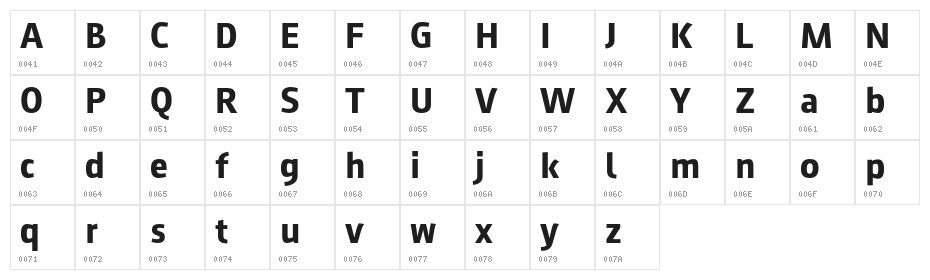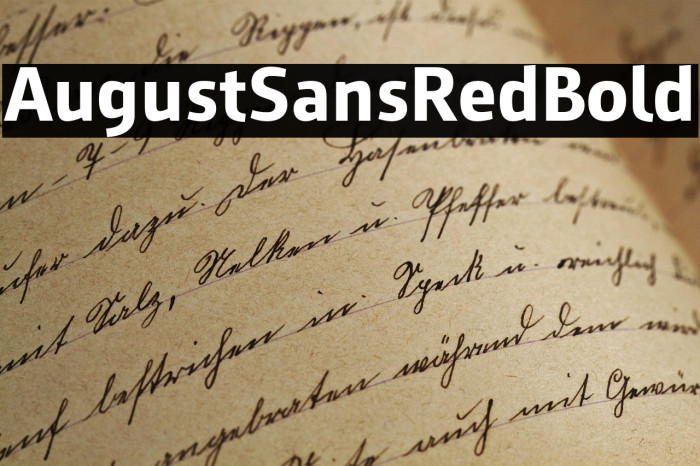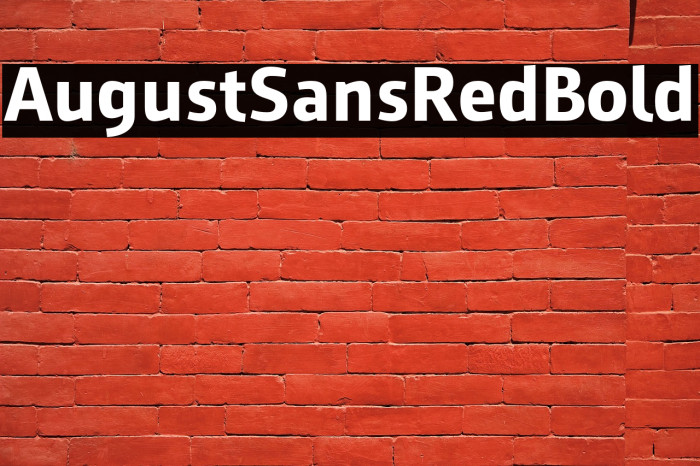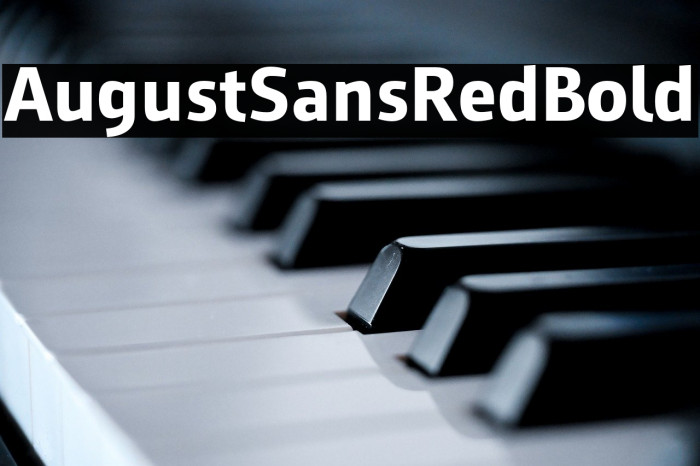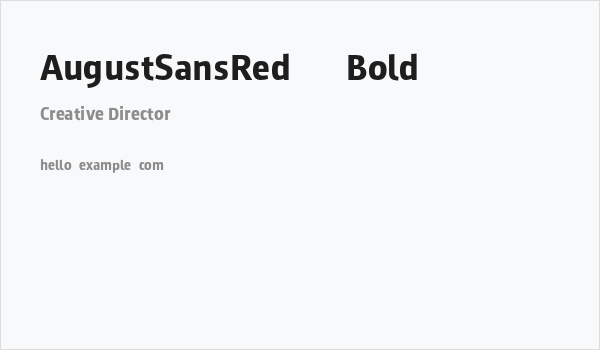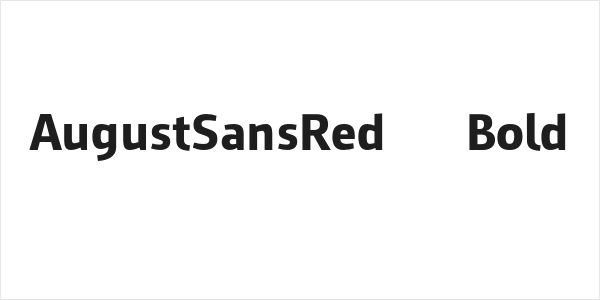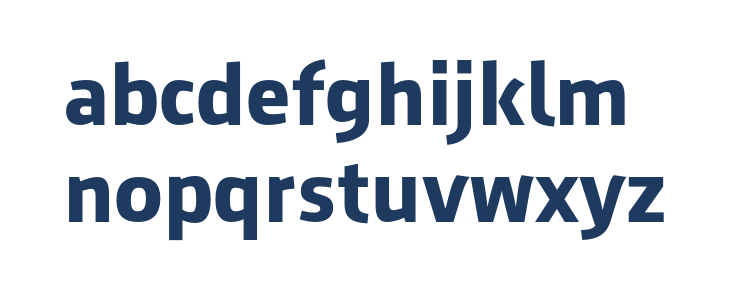
AugustSansRed-75Bold Font
AugustSansRed-75Bold Description
This font features a bold and modern sans-serif style, characterized by clean lines and a strong presence. The uppercase and lowercase letters are well-proportioned, with a consistent stroke width that conveys a sense of stability and professionalism. The design is straightforward, making it highly legible and versatile for various applications. The characters are evenly spaced, ensuring readability across different sizes and contexts. This font's simplicity and boldness make it suitable for both digital and print media, where clarity and impact are essential.
| Use Case | Headlines, Logos, Digital interfaces |
| Proposed Projects | Ideal for branding, advertising, headlines, and digital interfaces where clarity and impact are crucial. |